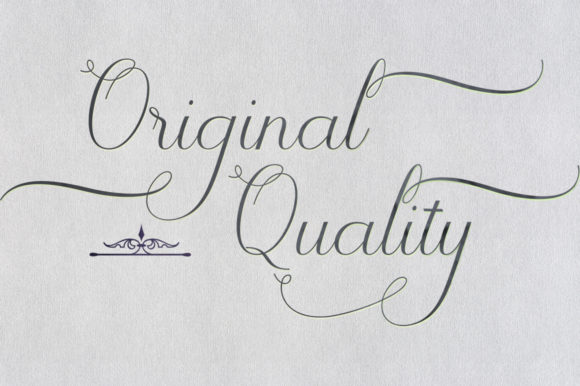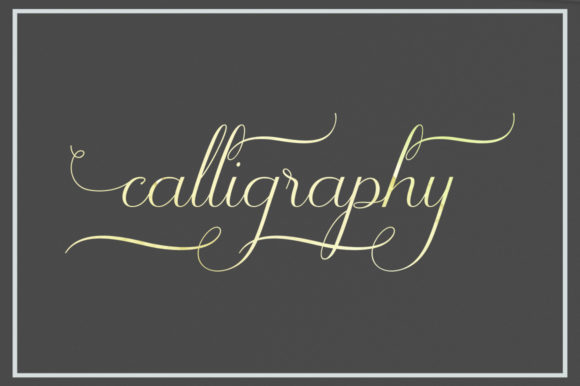
Jasmitha Script Font
db-ku.com - Script & Handwritten -- The Jasmitha is a modern handwritten script. It’s easy to use and has a great readability. Perfect for branding designs!